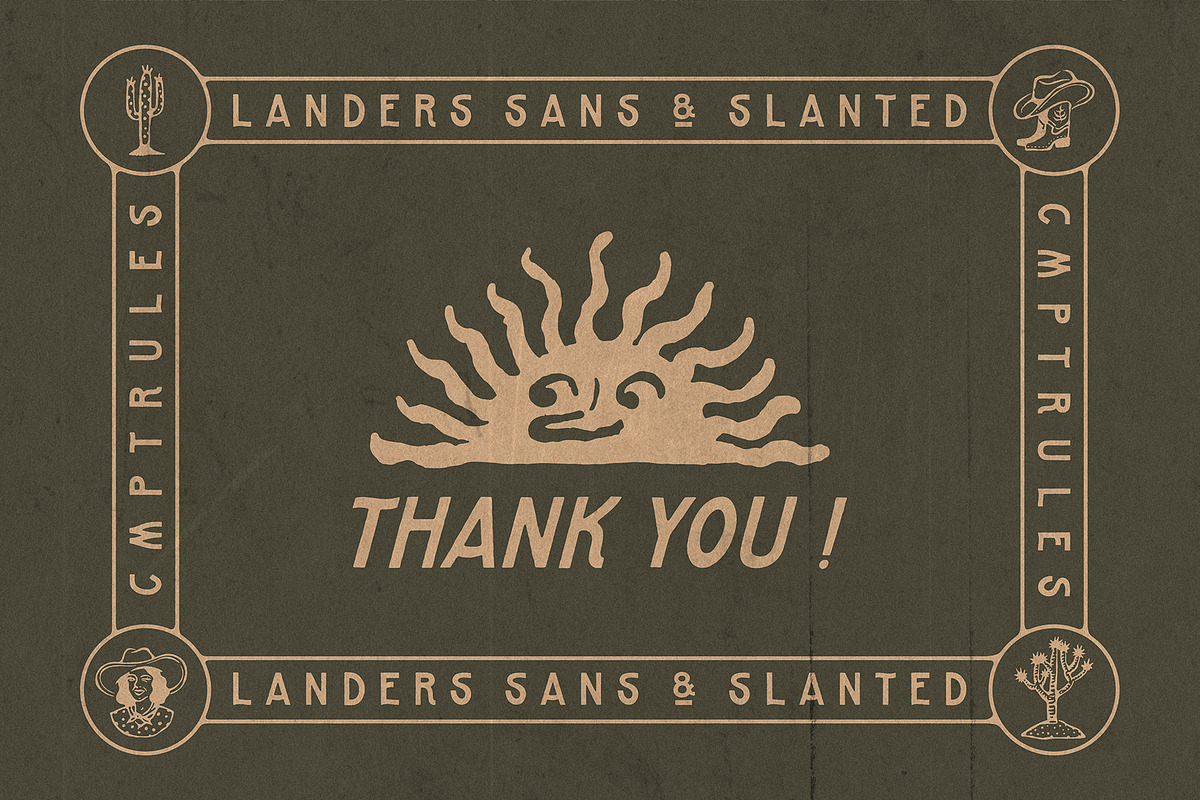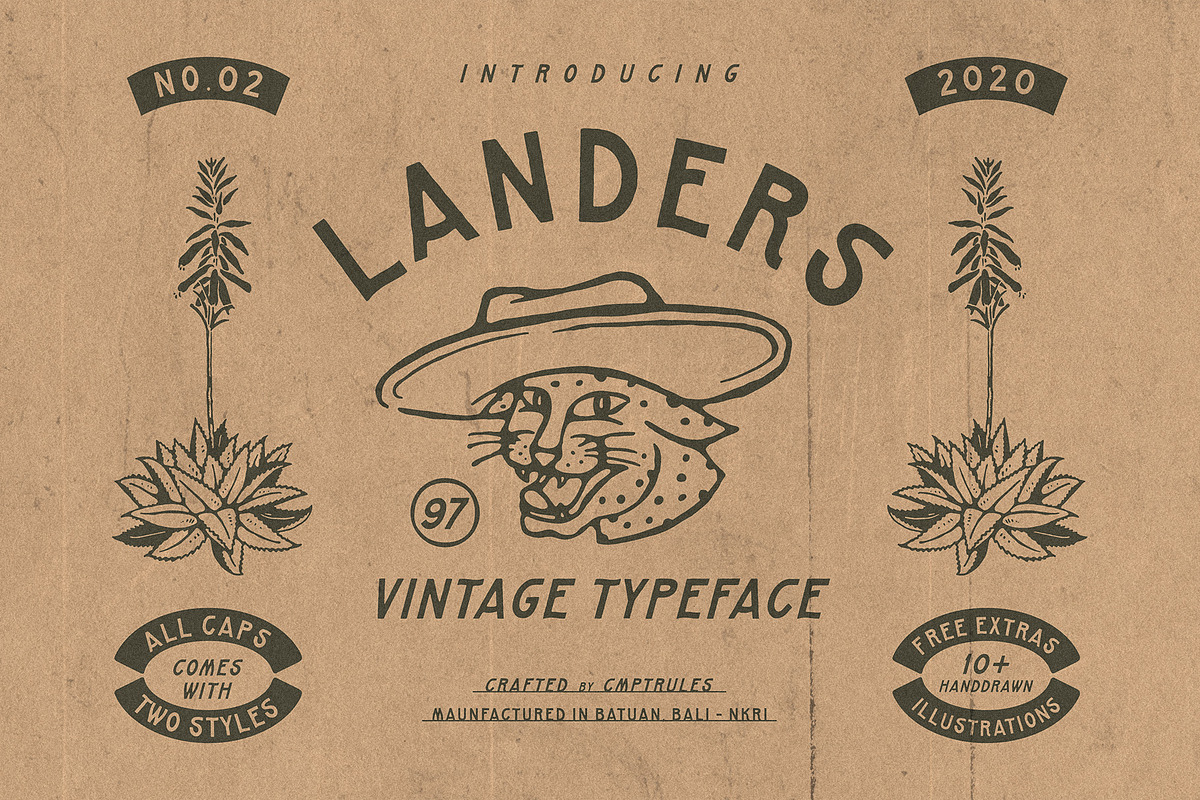
LANDERS DISPLAY TYPEFACE
LANDERS it's a vintage clean inspired font that's originally handdrawn feels. It comes in two styles, Regular & Slanted. Perfect fit and easy to make your amazing product. Also comes with 10+ FREE unique illustrations and 6 editable logos. Suitable for label designs, logo designs, badge designs, t-shirt designs, posters, greeting cards, letterheads or anything that looks vintage style. Hope you guys enjoy it!